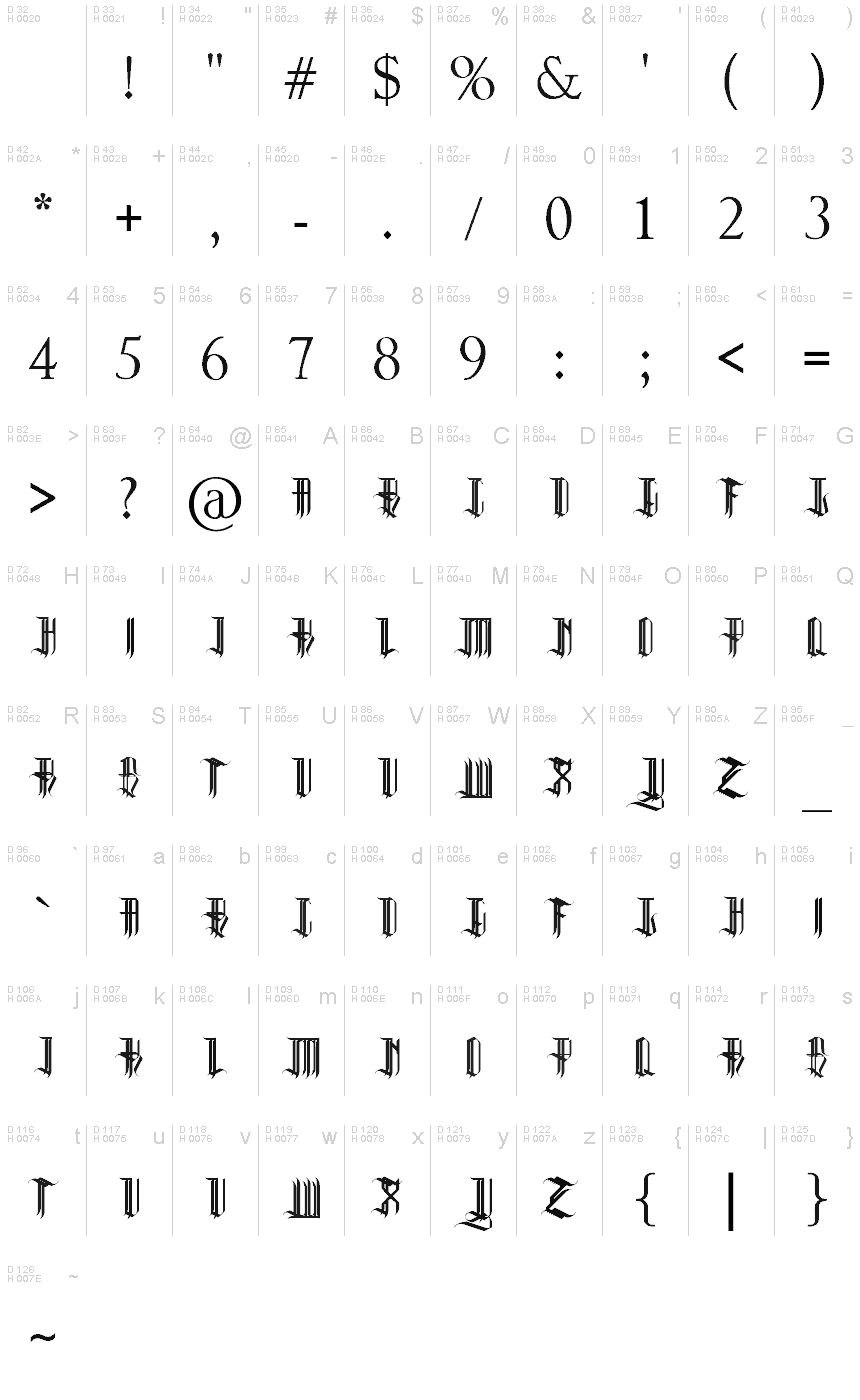
REVERENT REG
font by Daniel Owen
Reverent - To feel or show deep & solemn respect.
Reverent is a typeface inspired by the history of the blackletter type family, paying tribute to its sometimes tarnished past, multitude of uses & aesthetic visual inspirations, it is to be used to invoke an atmospheric tone under the guise of a twisting, dagger like display face.